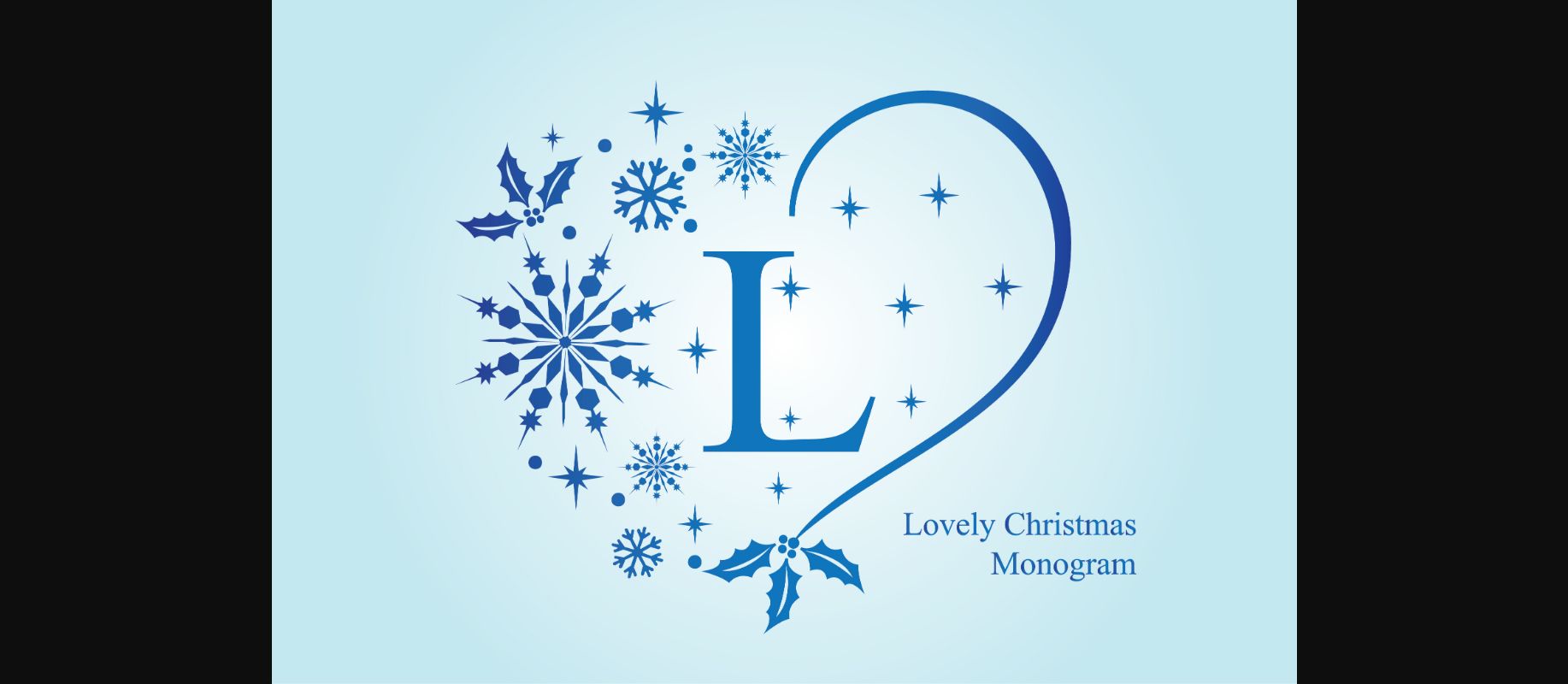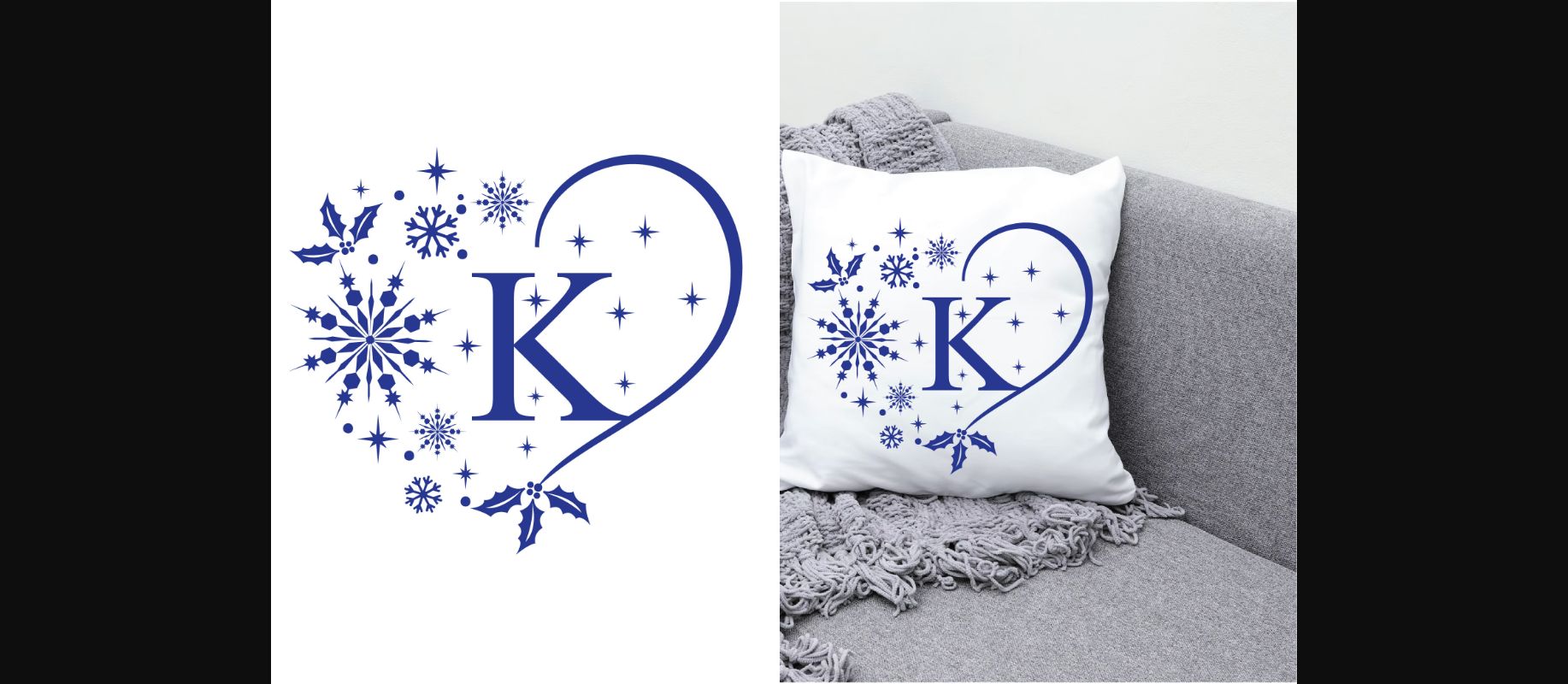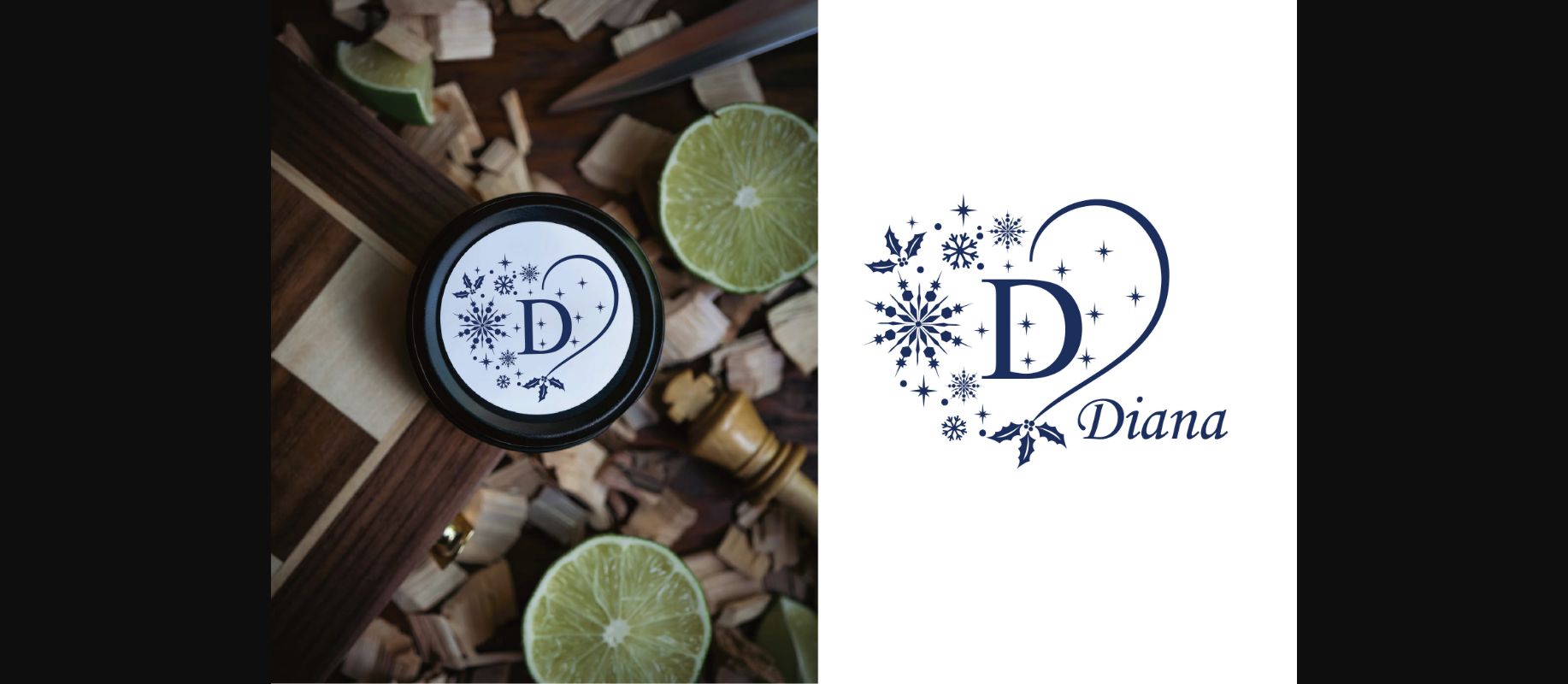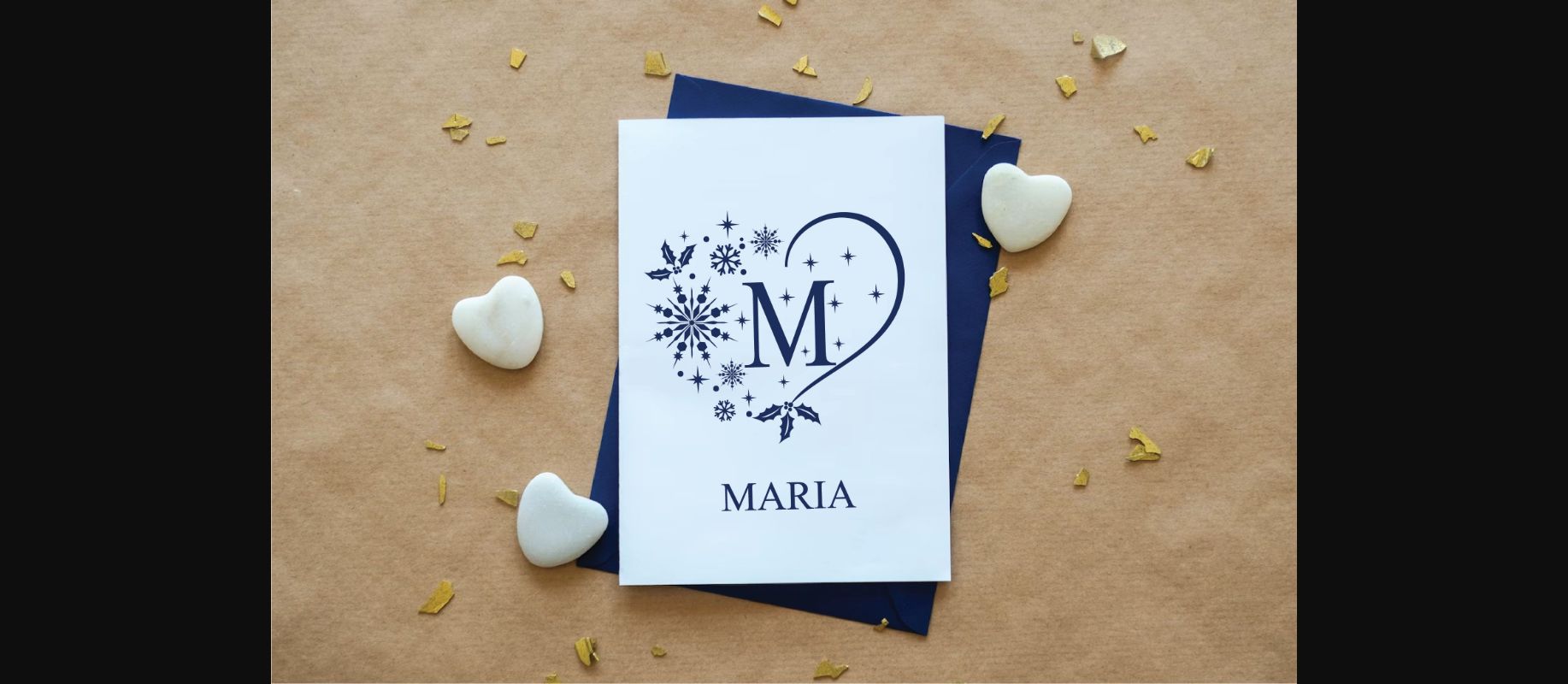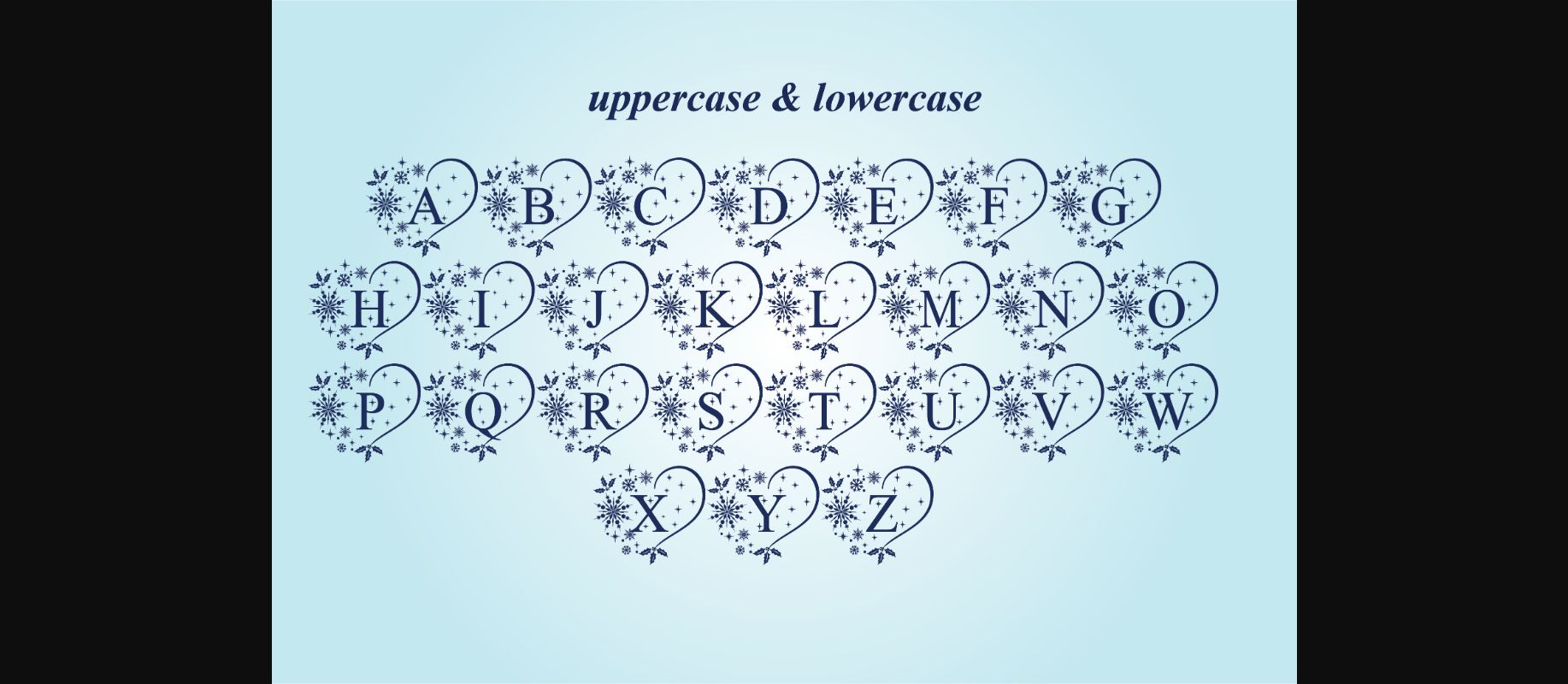
About Lovely Christmas Font
Lovely Christmas is a cute decorative monogram font with snowflake ornaments. Fall in love with its authentic feel and use it to create gorgeous invitations, beautiful stationary art, eye-catching social media posts, and cute greeting cards.